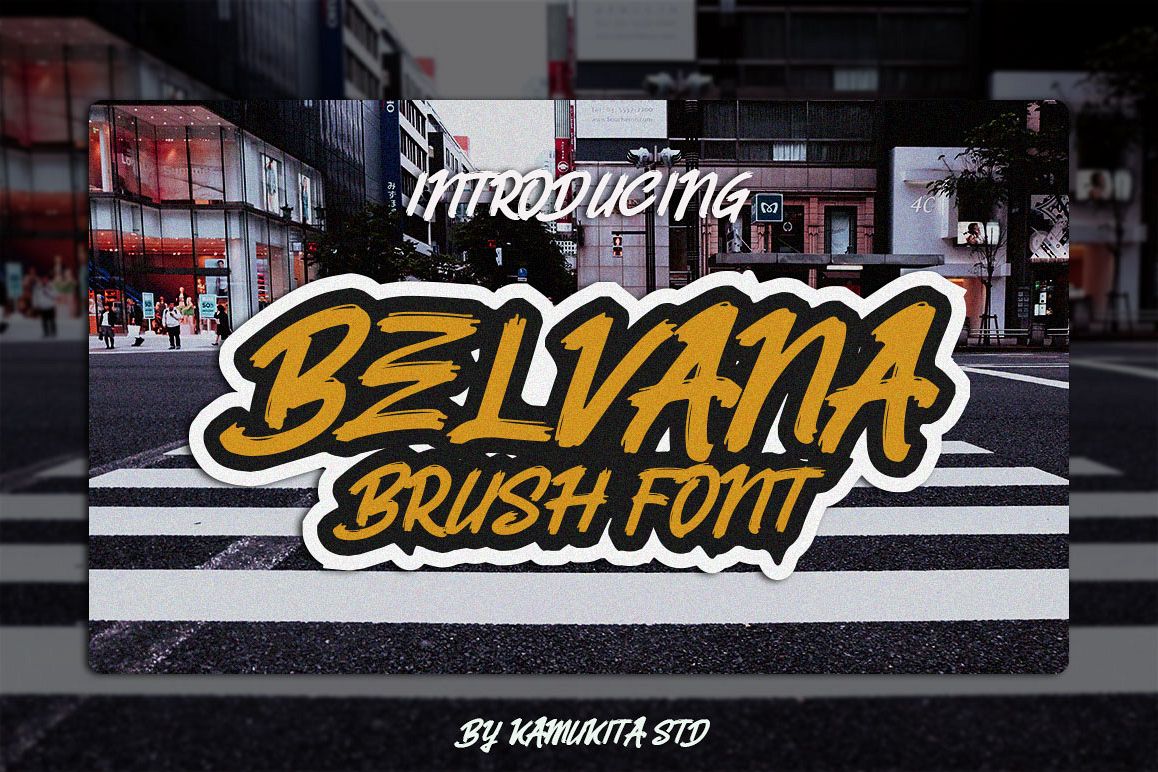
Belvana Brush Font
Introducing, Belvana is amazing brush font that will make your designs stand out!
Belvana is perfect for branding projects, logo, book cover design, tshirt designs, social media posts, advertisements, product packaging, product designs, label, watermark, invitation, stationery and any projects.